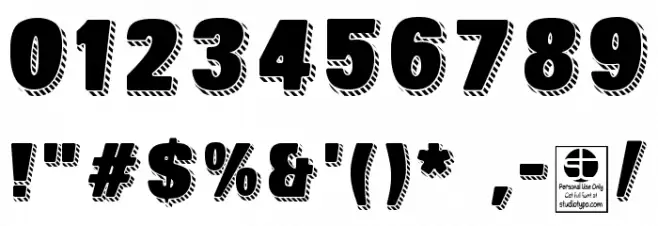
SUPER SEVEN Shadowed Demo Font
This font features bold, uppercase and lowercase letters with a distinct shadow effect that adds depth and dimension. The characters are thick and robust, making them highly visible and impactful. The shadowing is consistent across all characters, providing a cohesive look. The numbers and special characters follow the same style, ensuring uniformity. This font is ideal for projects that require a strong visual presence and a touch of playfulness.
Bold, shadowed font with a playful and impactful style from Uncategorized fonts.
- Proposed Projects: Ideal for posters, headlines, logos, and any design needing a bold statement.